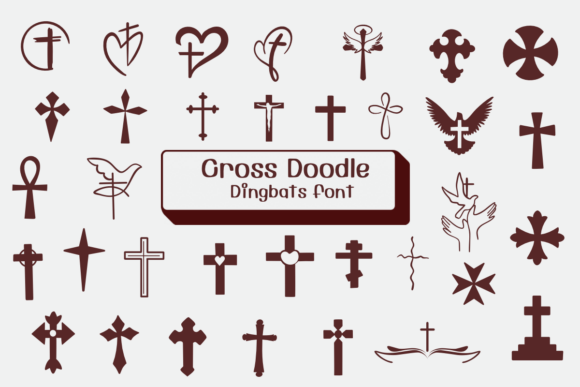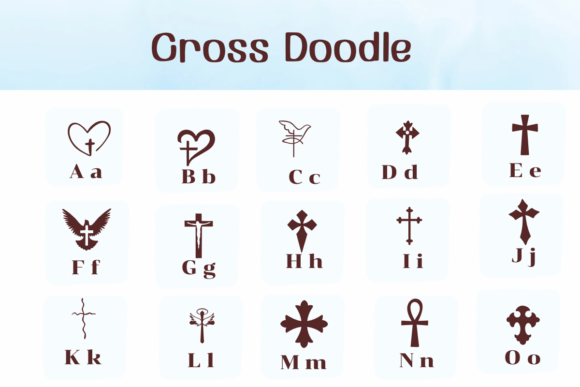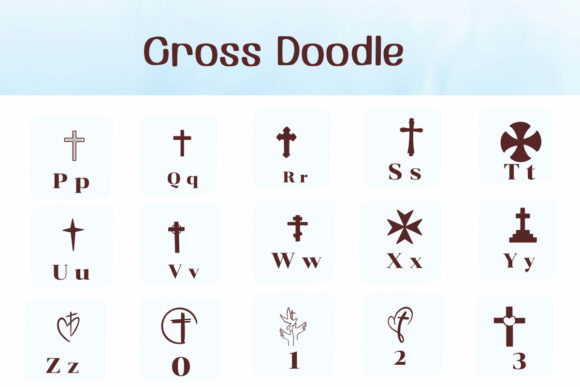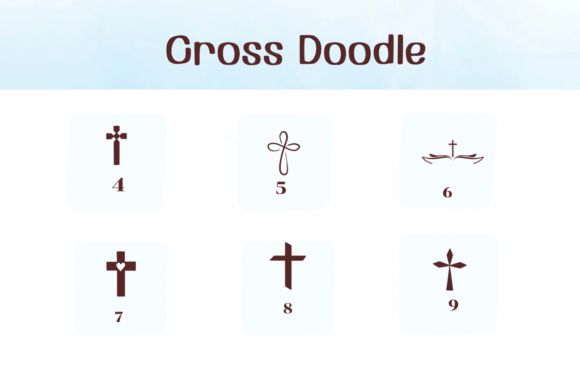
Cross Doodle Font
About the Cross Doodle Font
Crafted with precision, the Cross Doodle Font is ready to bring your ideas to life. Cross Doodle Dingbats Font is a spiritual and creative collection of cross-inspired illustrations. Featuring an array of beautiful and unique cross designs, doves, and Christian symbols, this dingbat font is perfect for church bulletins, religious projects, invitations, faith-based logos, and more. Add an uplifting and elegant touch to your creations with this versatile decorative font.
Cross Doodle Font’s ornate style is best suited for headlines, short text blocks on invitations or certificates, and logos requiring a distinct visual identity. It excels in projects emphasizing faith, spirituality, or artistic expression, particularly where a handcrafted feel is desired. Avoid using it for body text or lengthy passages; its decorative nature hinders readability in extended use.
This font’s personality is elegant yet approachable. It projects a sense of calm strength and quiet faith. Pair it with a clean sans-serif like Open Sans for a balanced contrast, or a classic serif like Garamond for a more traditional feel. For a modern twist, consider pairing it with a geometric sans-serif such as Montserrat.
Using Cross Doodle sparingly maximizes its impact. Its detailed nature makes it less effective in small sizes or high-density applications such as UI design.
Cross Doodle Font Usage Examples
Cross Doodle Font Example